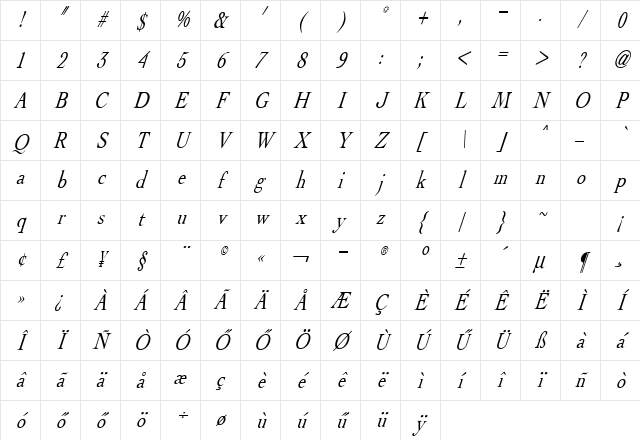
H_Albatross is a composed and adaptable typeface that performs quietly and consistently across a wide range of design contexts. The slanted form adds forward momentum and visual energy.